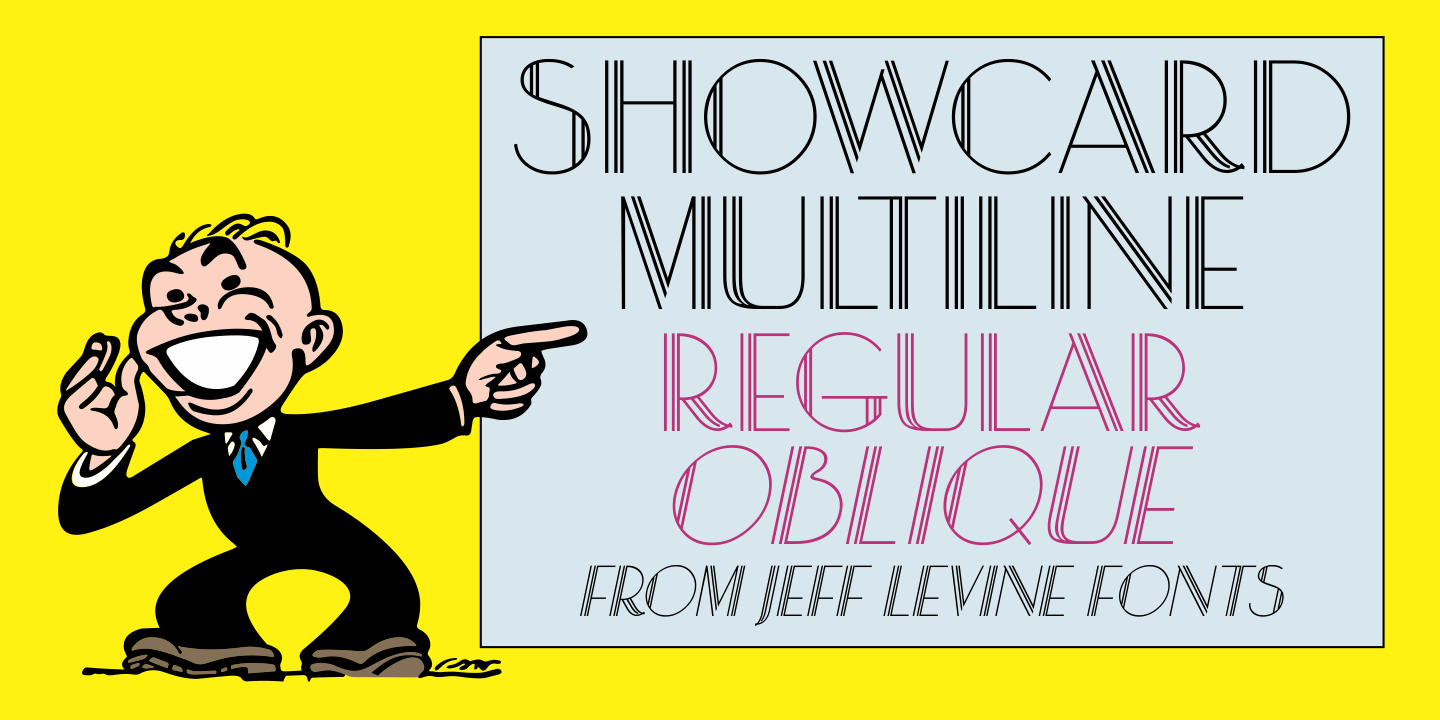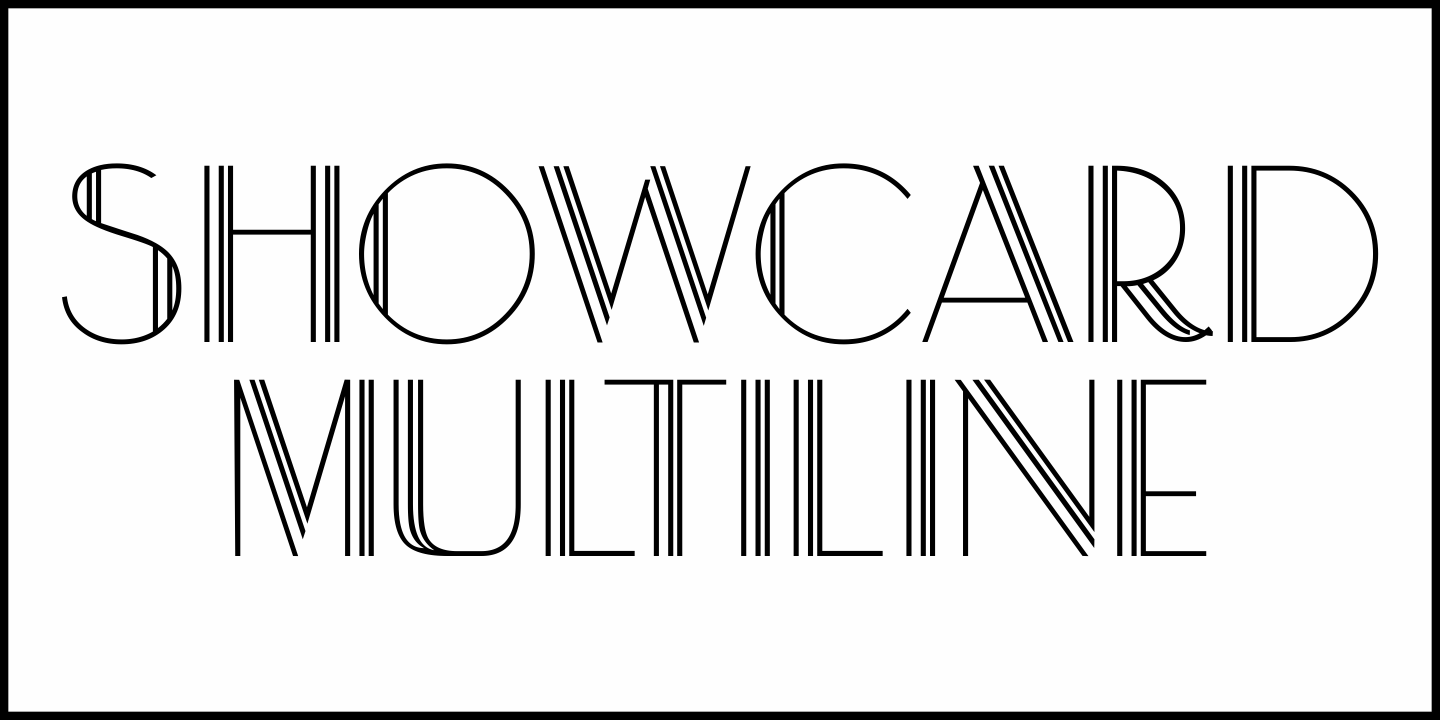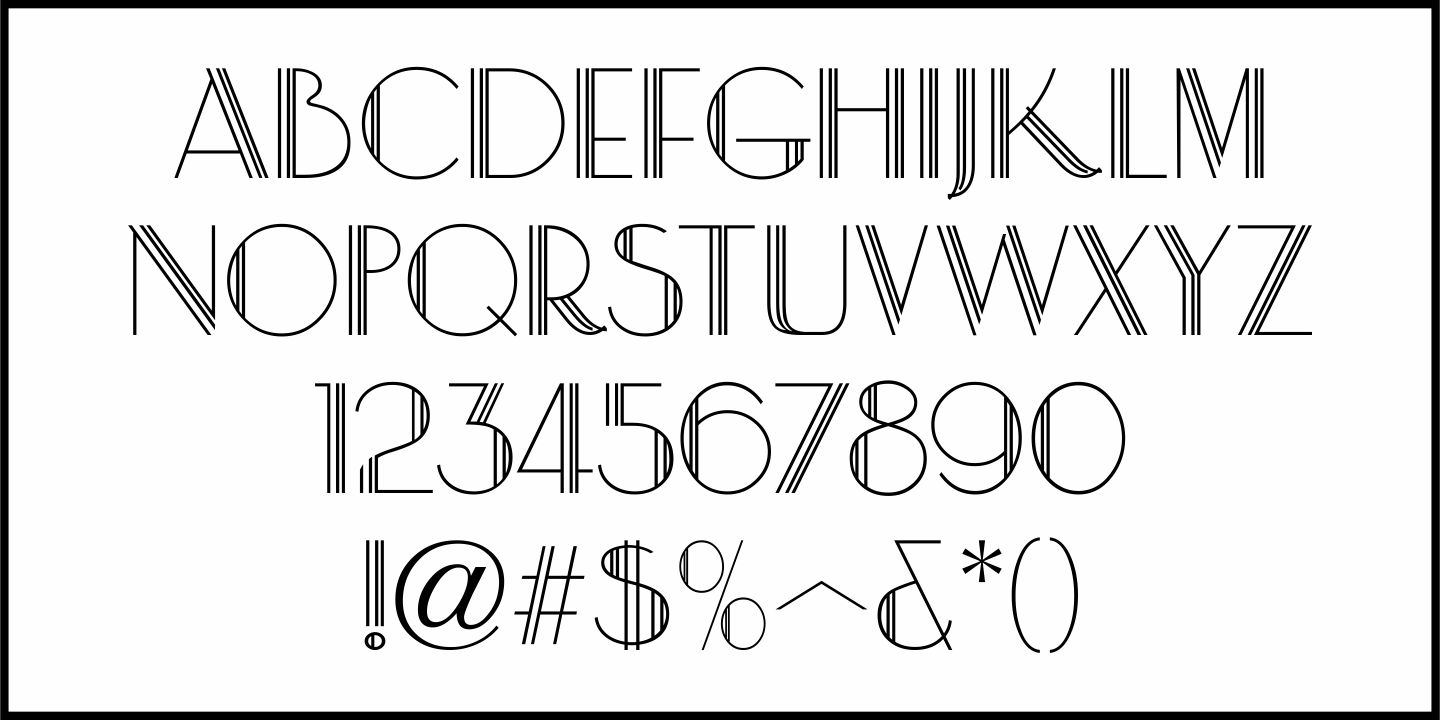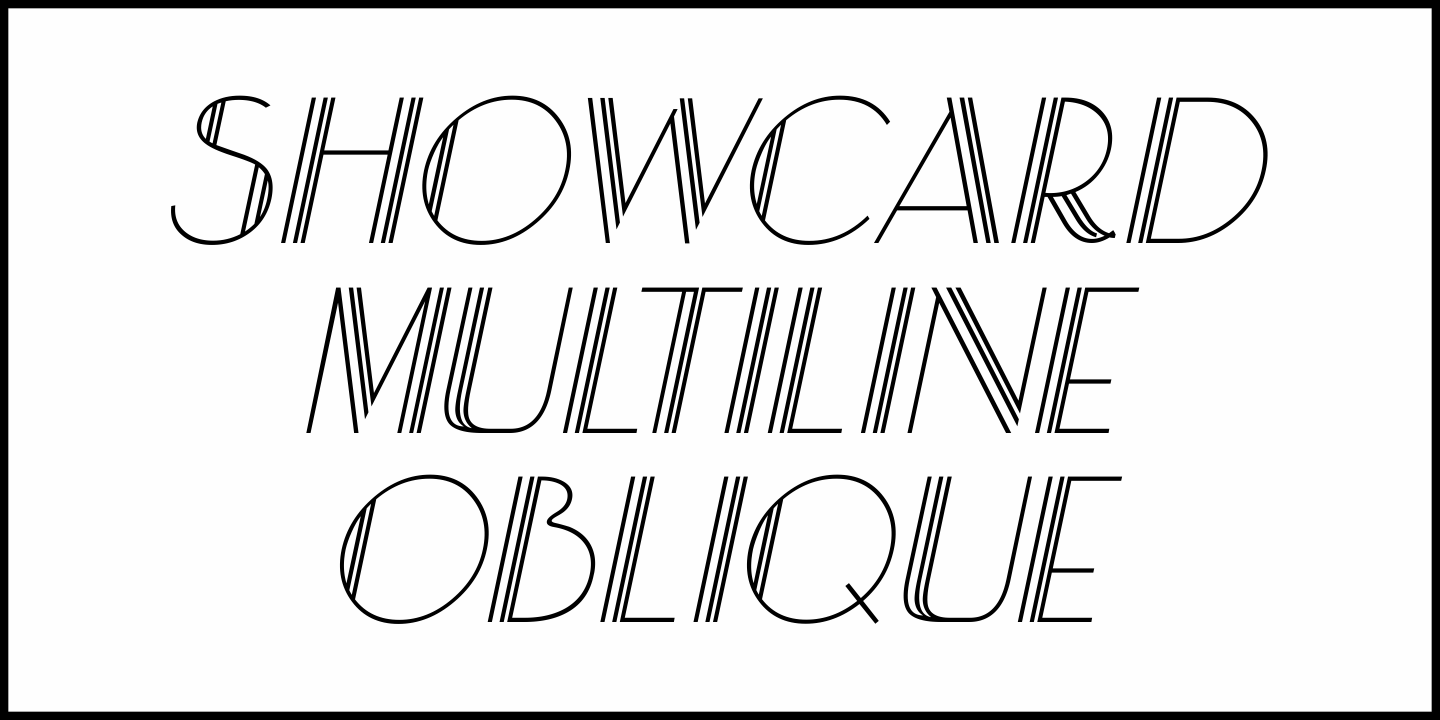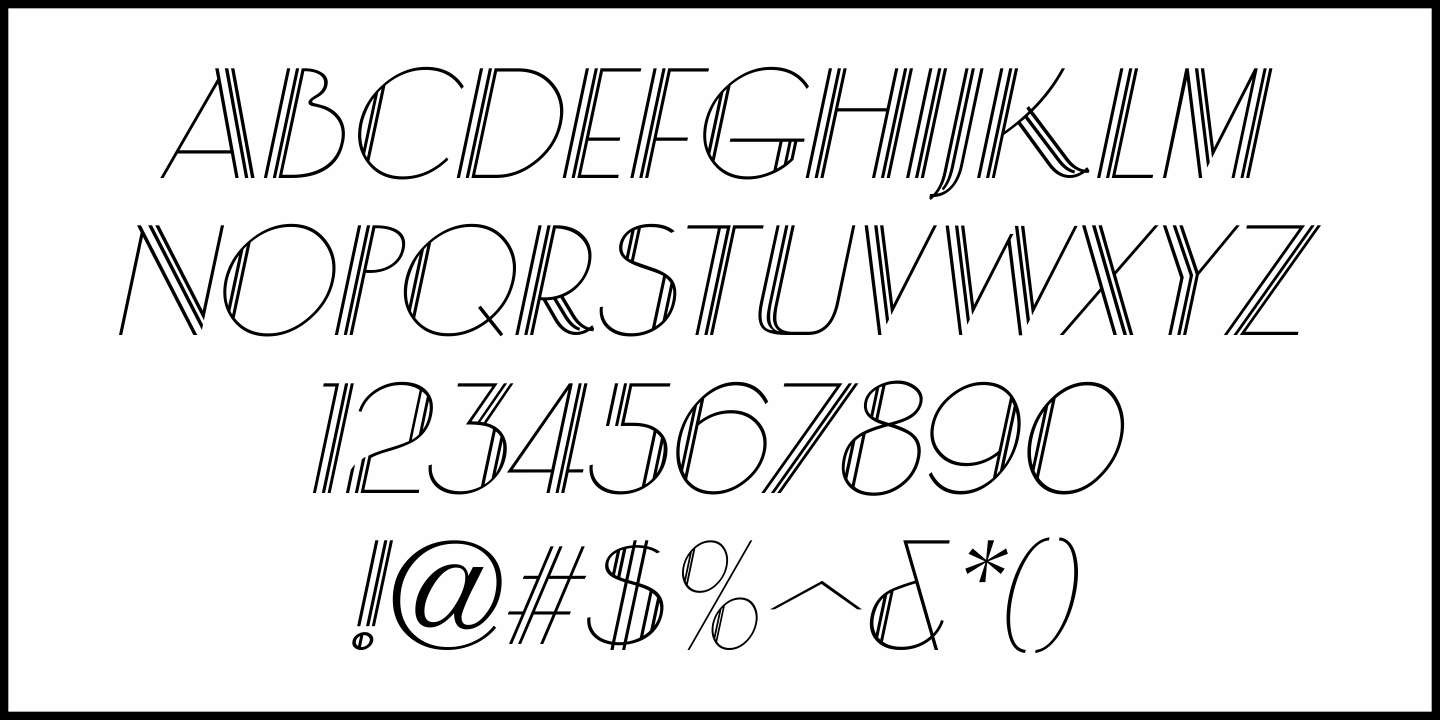
Showcard Multiline
Buy NowOn page 45 of Samuel Welo's 1930 instructional book 'Lettering Practical and Foreign' is a multi-line alphabet of Art Deco elegance that perfectly captures the spirit of the Streamline era.
The digital version is available as Showcard Multiline JNL in both regular and oblique versions.